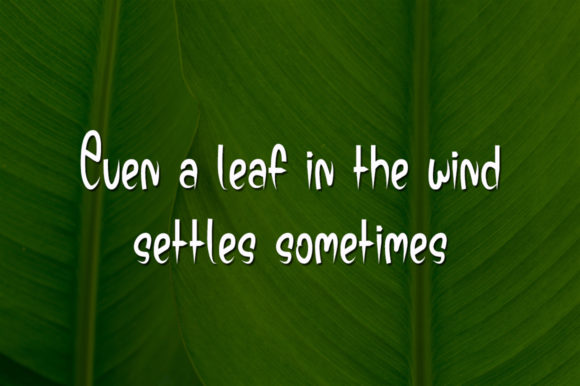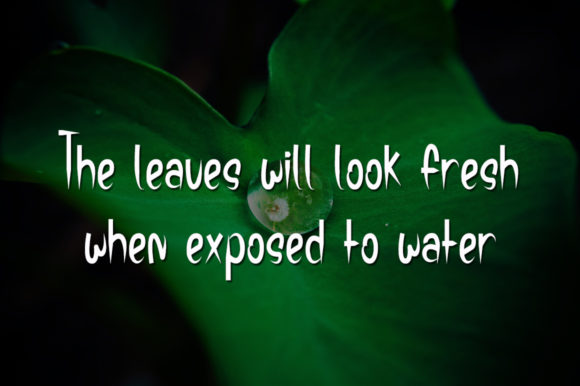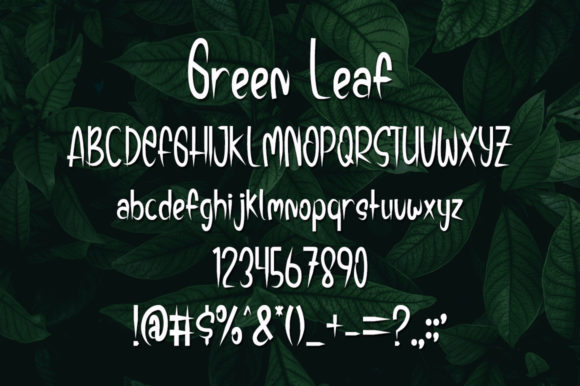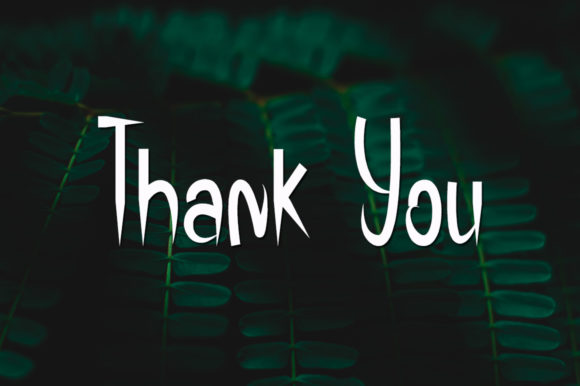
Introduction to Green Leaf Font
Green Leaf is a simple and friendly handwritten font.
Fall in love with its completely different and timeless style and use it to create spectacular designs .
Key Features of Green Leaf Font
Why Choose Green Leaf Font?
Green Leaf Font offers exceptional quality and versatility, making it a valuable addition to your design toolkit. Whether you’re creating for personal projects or commercial use, Green Leaf Font delivers professional results.